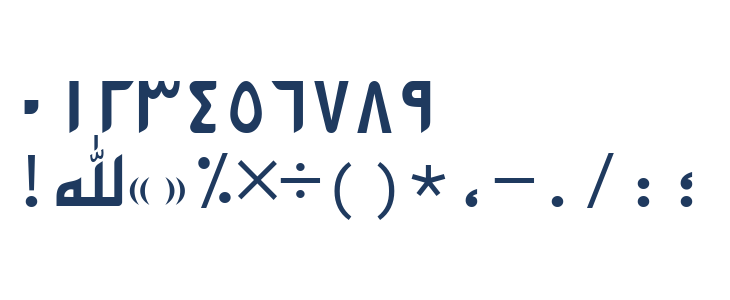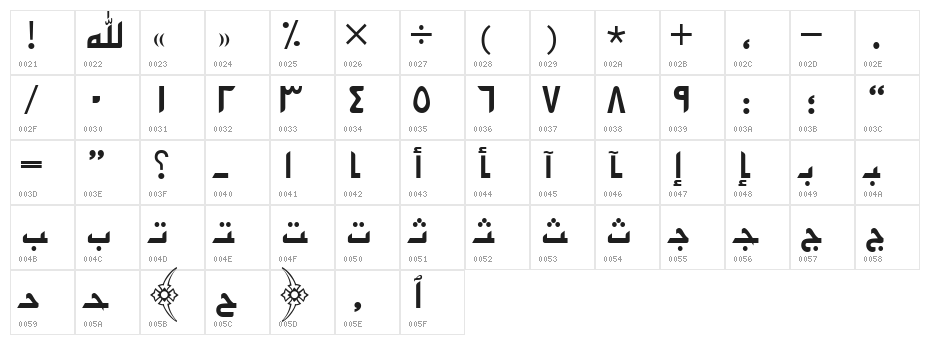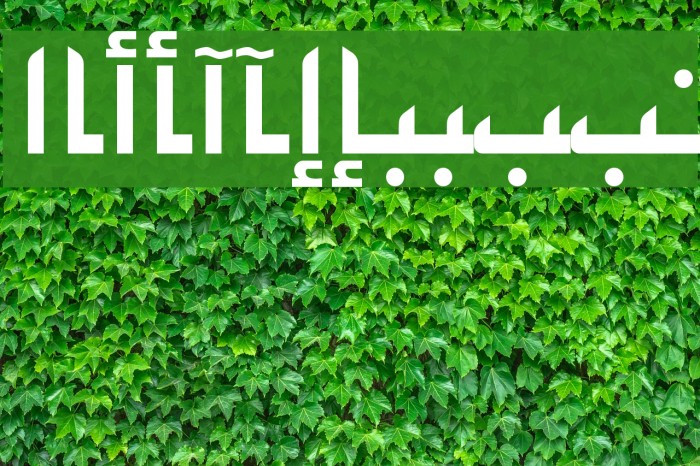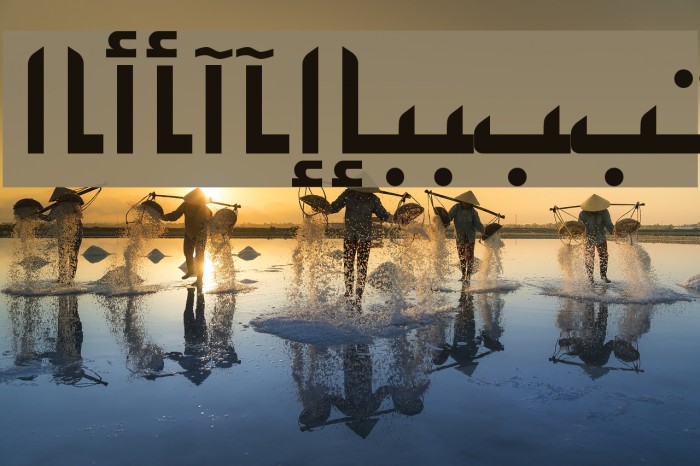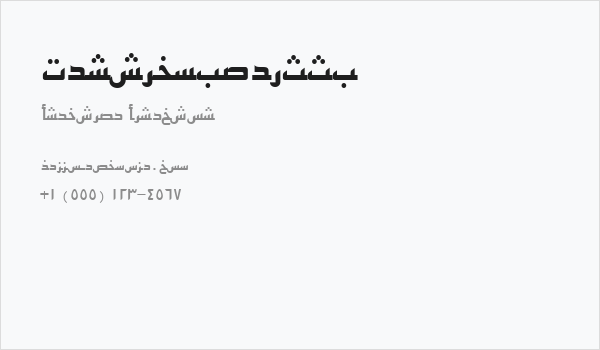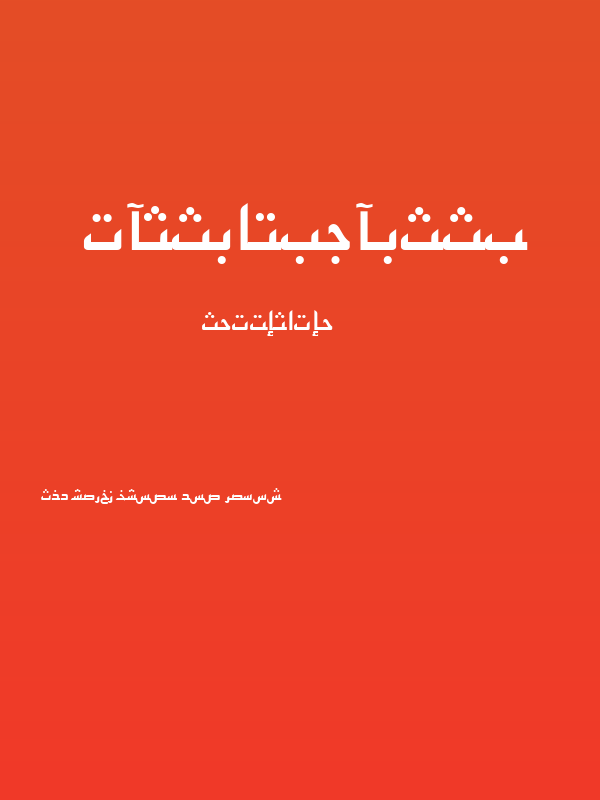
PersianKufiSSK Font
PersianKufiSSK Description
This font is characterized by its bold and geometric structure, drawing inspiration from traditional Kufi calligraphy. The letters are crafted with a strong emphasis on horizontal and vertical lines, creating a sense of stability and balance. The strokes are thick and uniform, providing a modern yet timeless appeal. The font includes a comprehensive set of characters, including numerals and special symbols, making it versatile for various applications. Its distinct style is both decorative and functional, suitable for projects that require a touch of cultural elegance.